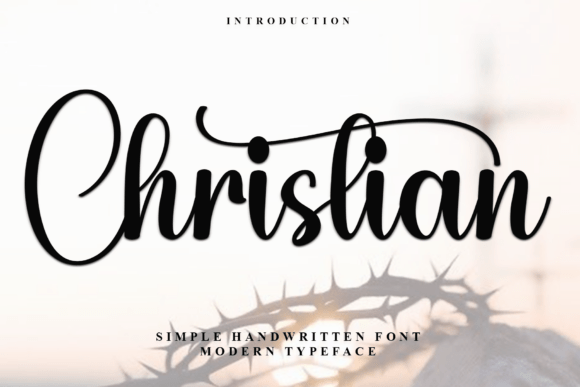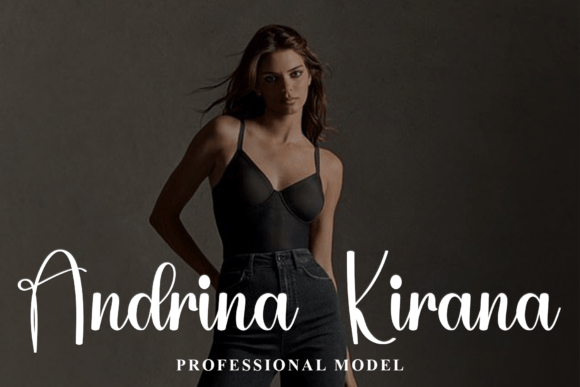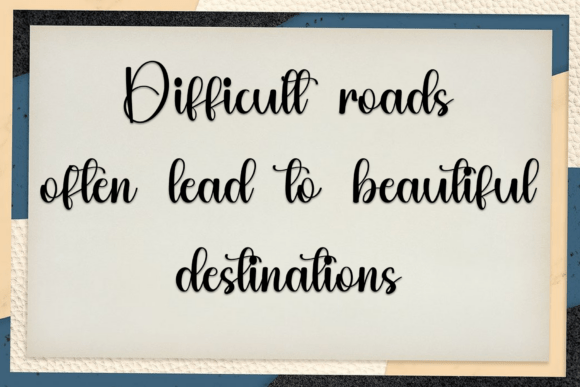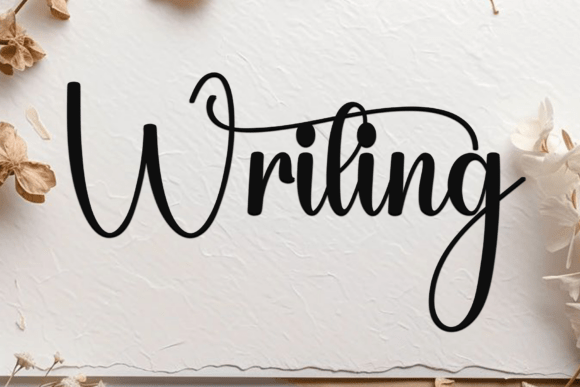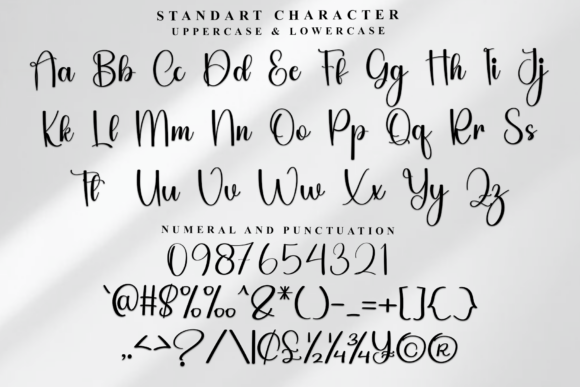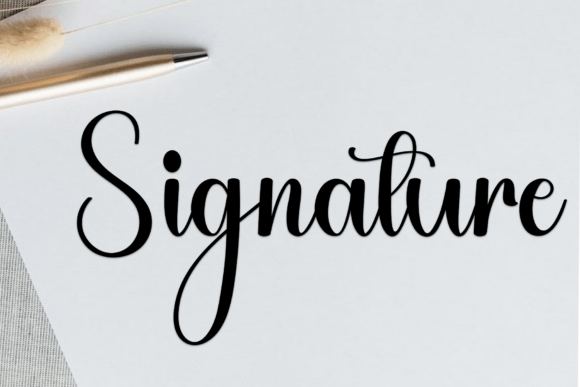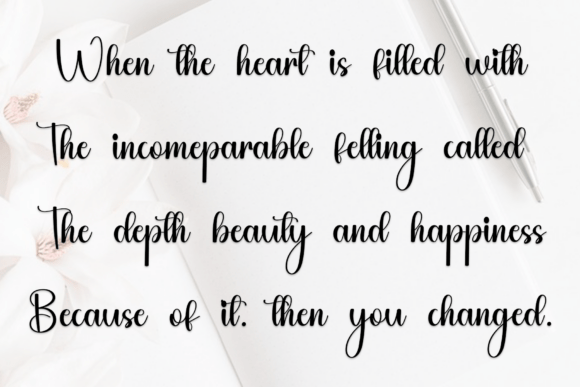
Enter Christian Font, a charming and approachable typeface that’s perfect for personal projects, invitations, and social media graphics. With its round, playful strokes and hand-drawn aesthetic, Christian Font adds a unique touch to any design. Whether you’re a seasoned pro or a design newbie, this font is sure to become a trusted companion in your creative journey.
Key Features of Christian Font
- Unique Characteristics: Christian Font features a unique blend of traditional and modern elements, with intricate details and ornate flourishes that set it apart from other fonts.
Christian Font Review
As a designer, I had the opportunity to work with the Christian Font, and I must say it’s a mixed bag.
- Unique aesthetic: The Christian Font has a distinctive look that’s perfect for those who want to make a statement.
- Readability: Despite its unconventional design, the font is surprisingly easy to read, especially in larger sizes.
- Expressiveness: The Christian Font is great for conveying a sense of warmth and friendliness, making it suitable for non-profit or community-based projects.
- Limited versatility: The Christian Font is best suited for specific niches, and it may not be the best choice for more general or corporate projects.
- Overuse: The font’s distinctive design can quickly become overpowering, so it’s essential to use it judiciously and balance it with other typography.
- Technical issues: In some cases, the font may not render correctly in certain software or on specific devices, which can be frustrating.
The Christian Font is a bold and expressive choice that can add character to a project. However, its limitations should not be overlooked, and it’s essential to carefully consider the project’s context and audience before using it.
Tips for Getting the Most Out of Christian Font
Here are a few tips to help you get the most out of Christian font:
- Experiment with different font sizes and styles to find the perfect look for your design.
- Combine Christian font with other fonts to create a unique and eye-catching design.
- Use Christian font in conjunction with images and graphics to add visual interest to your design.
Christian font is commonly used in:
- Church bulletins and newsletters. Alternatives to Christian Font
- Choose a quote that resonates with your faith and values.
- Select a background image or color that complements the quote.
- Use Christian Font to display the quote in a bold, yet elegant way.
- Pair Christian Font with a minimalist background to let the quote take center stage.
- Add a subtle texture or pattern to give the design some depth.
- Use a matching color scheme to create a cohesive look.
- Choose a Bible verse or passage that resonates with you.
- Select a background image or color that complements the verse.
- Use Christian Font to display the verse in a clear and easy-to-read way.
- Pair Christian Font with a simple background to let the verse shine.
Can I customize Christian Font for my specific needs?